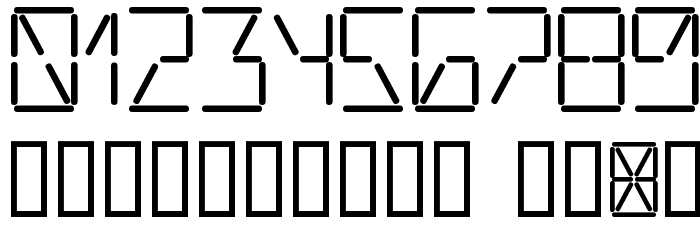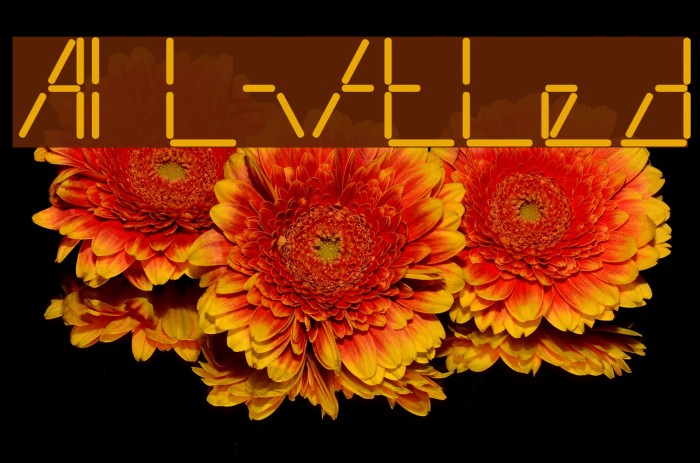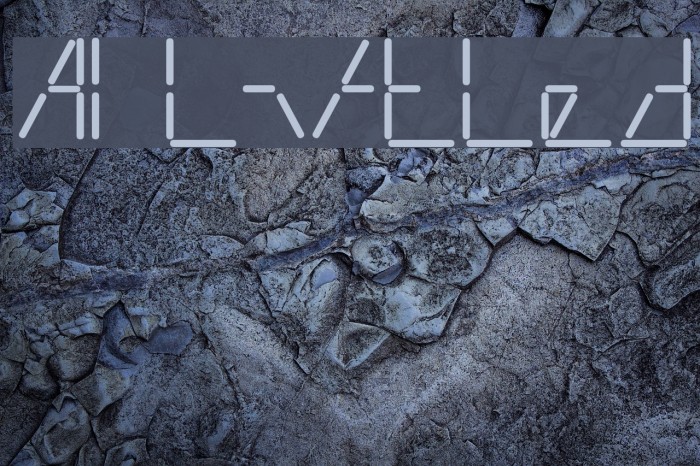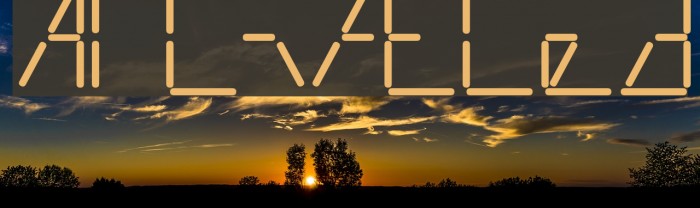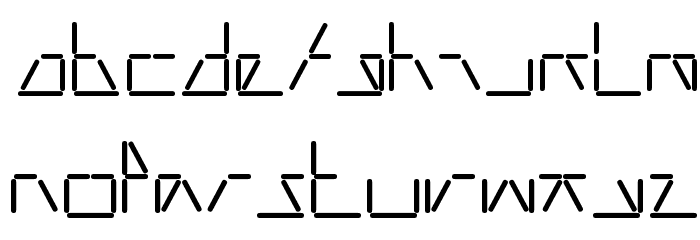
AI liftled Font
AI liftled Description
This font features a futuristic and geometric design, characterized by its segmented and angular letterforms. Each character is constructed with a series of straight lines and sharp angles, giving it a digital or electronic feel reminiscent of LED displays or digital clocks. The uppercase and lowercase letters maintain a consistent style, with a uniform stroke width that adds to its modern aesthetic. Numbers and special characters follow the same design principles, ensuring a cohesive look across all glyphs. The font's unique style makes it stand out, ideal for projects that require a tech-savvy or avant-garde appearance.